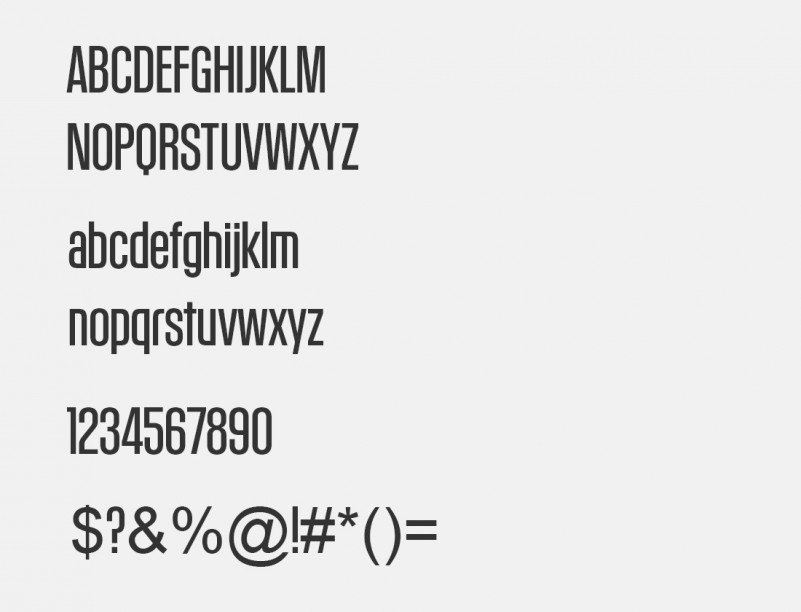
Kommissar Collection Font
Kommissar Sans Serif Font is a new contemporary font family designed with balance and versatility. The magazine needed a condensed typeface that suggested the future while referencing the past. The family is inspired by 1920s and ‘30s-era German display faces such as Plak Condensed and Vertikal.
The lively texture of round and sharp corners along with a lack of notches in the arches keeps all of the “action” on the tops and bottoms of the characters. With this simplified lowercase, Kommissar gives headlines and short blocks of text an unusual, but unique visual rhythm.